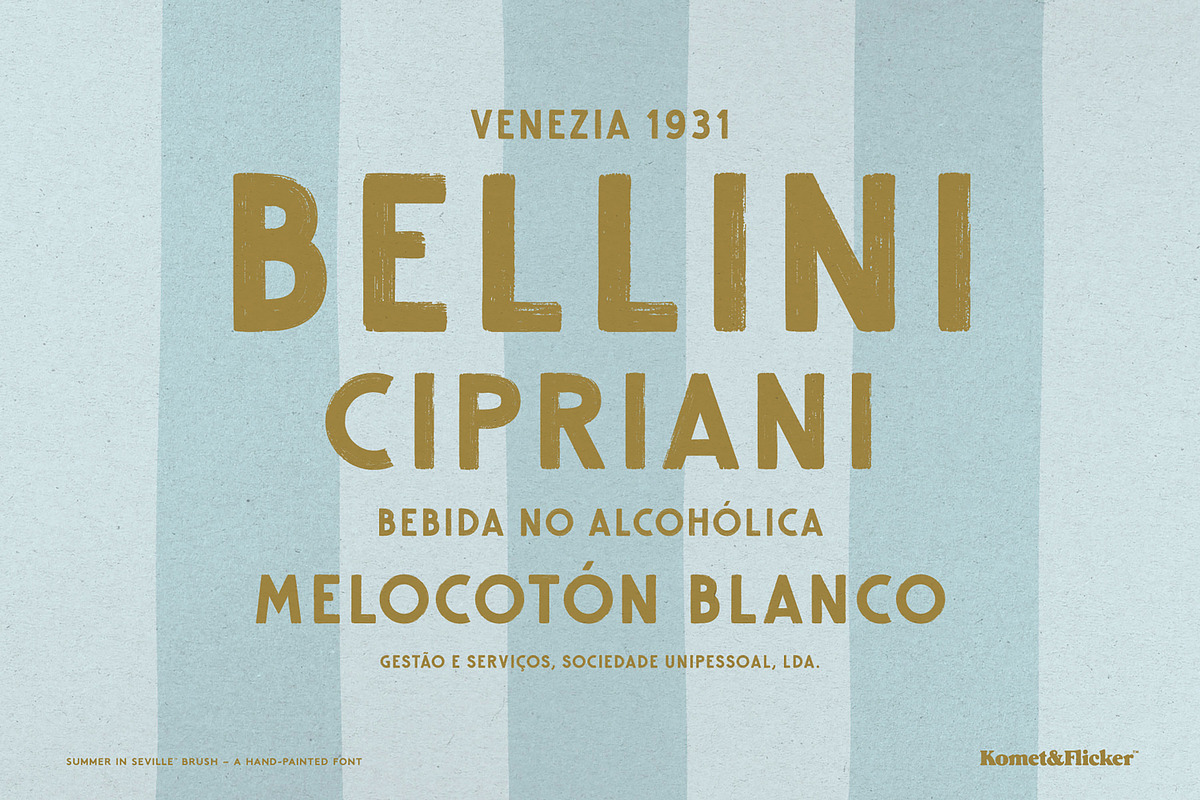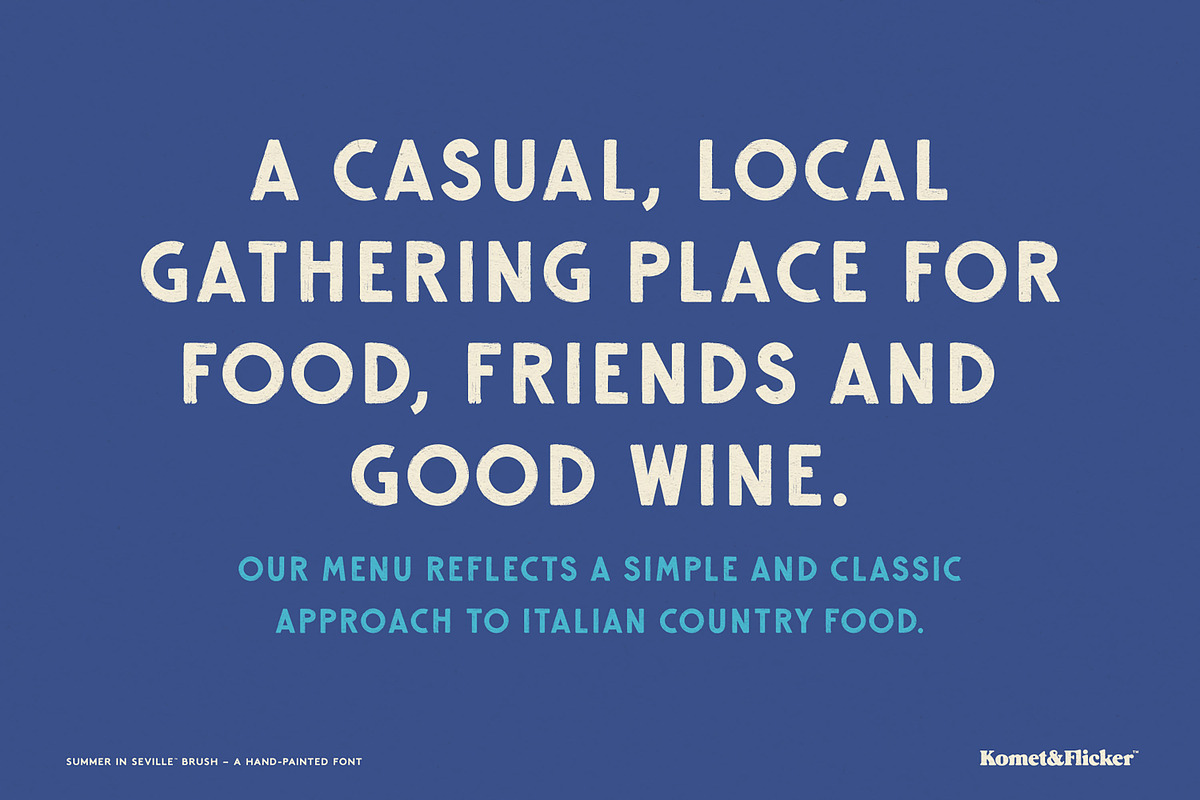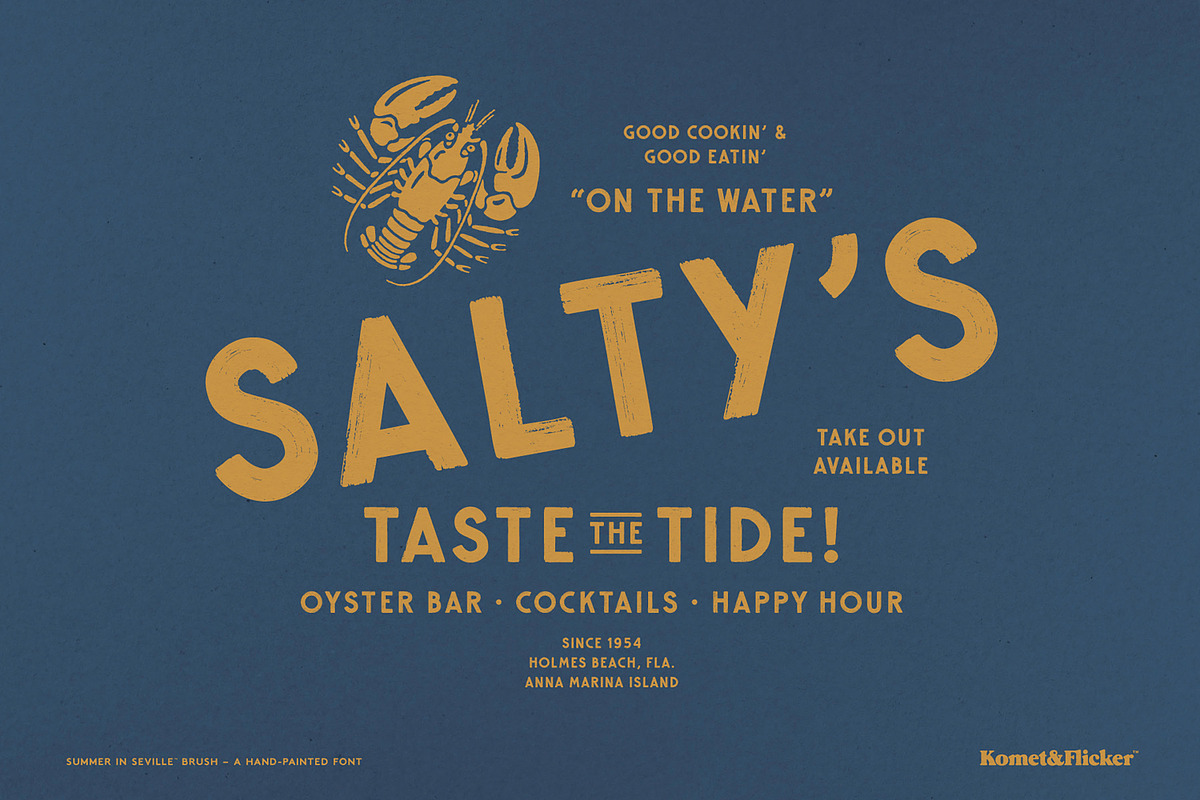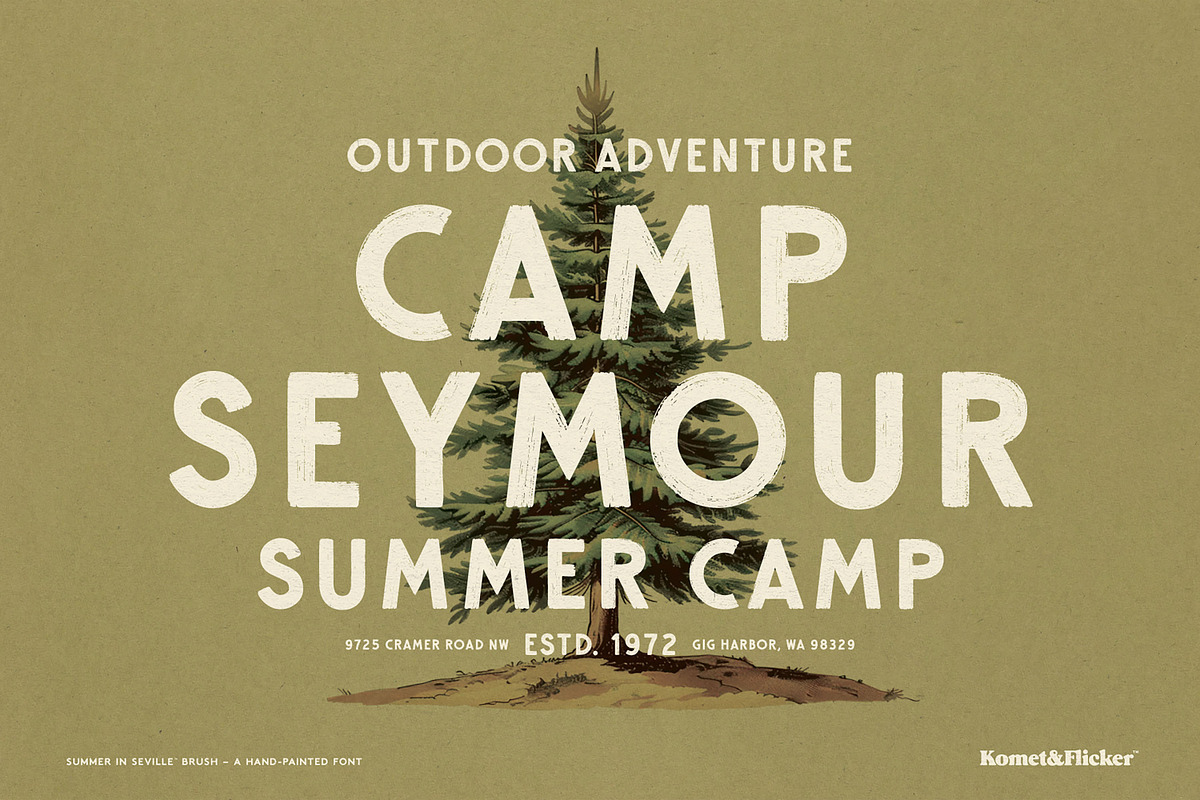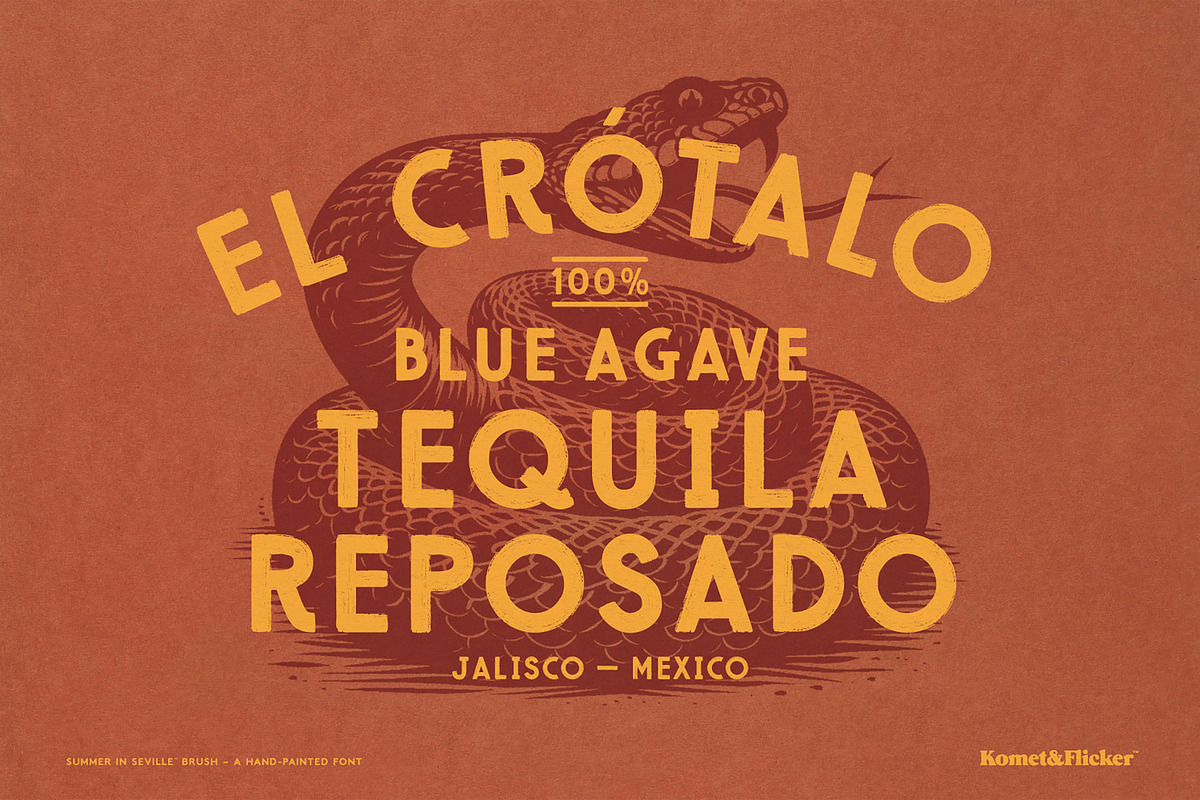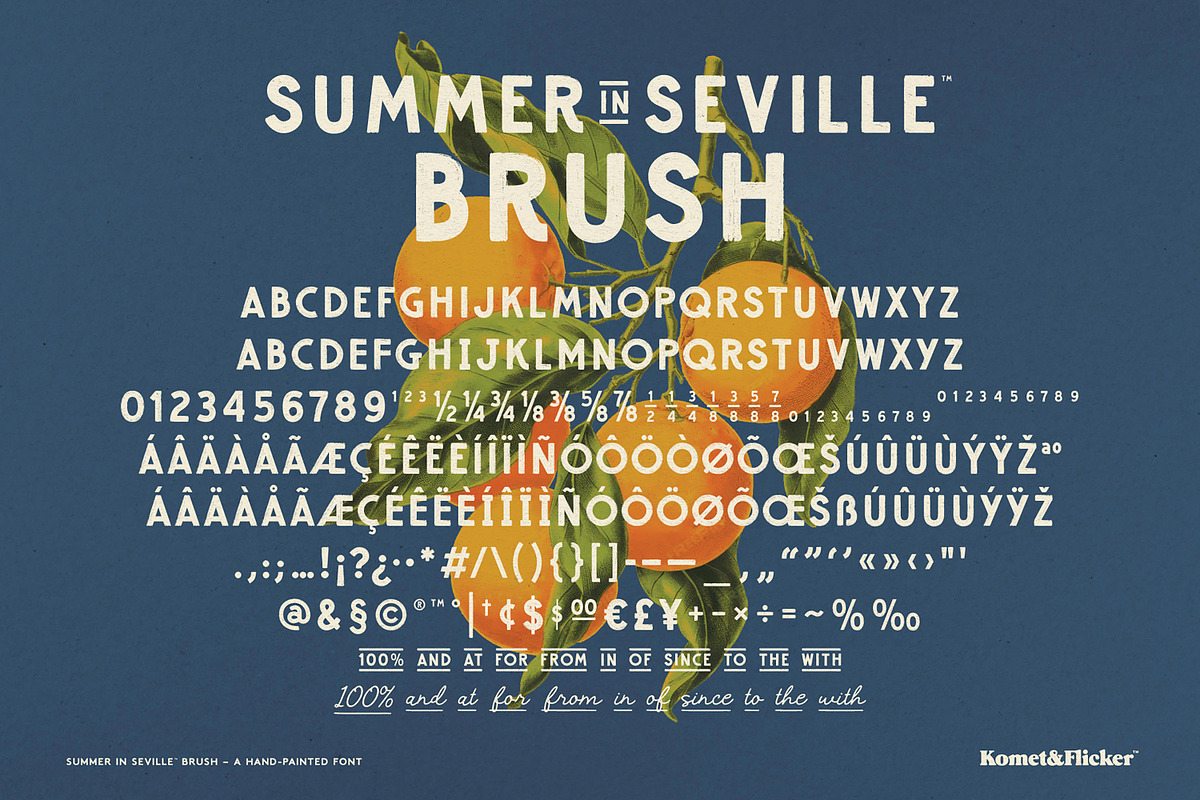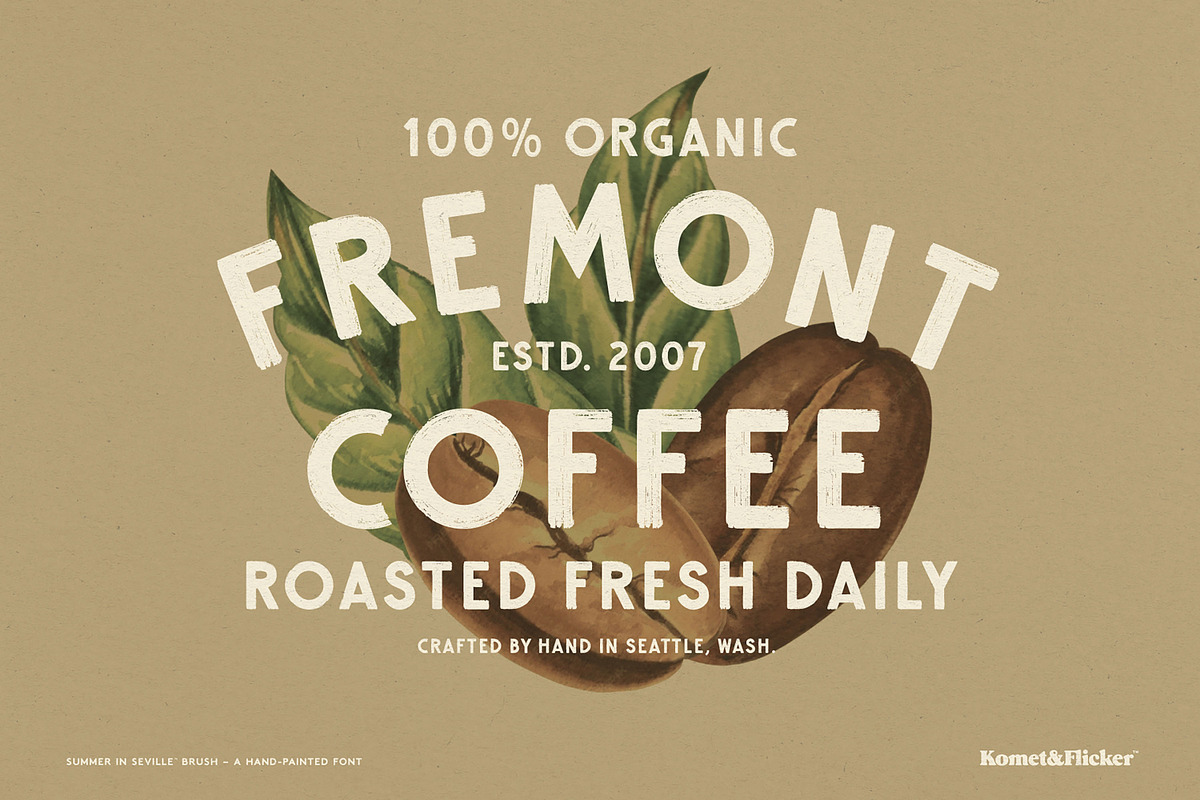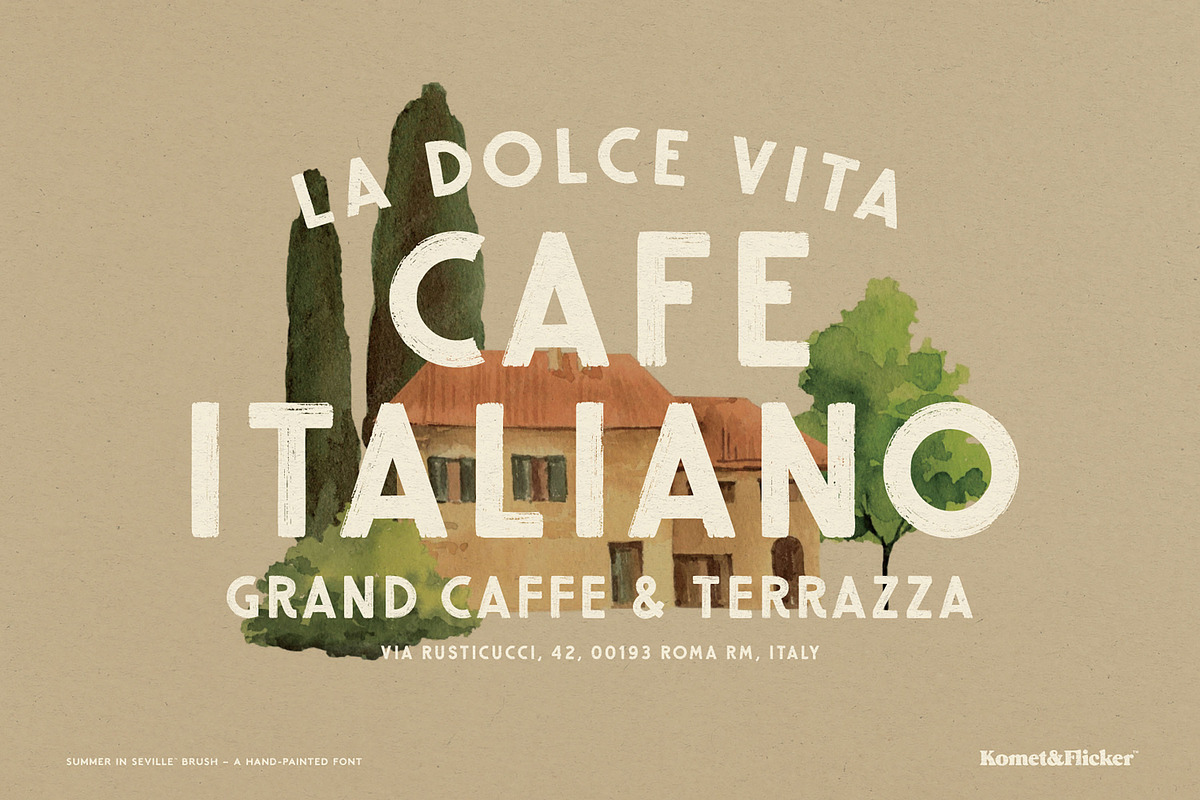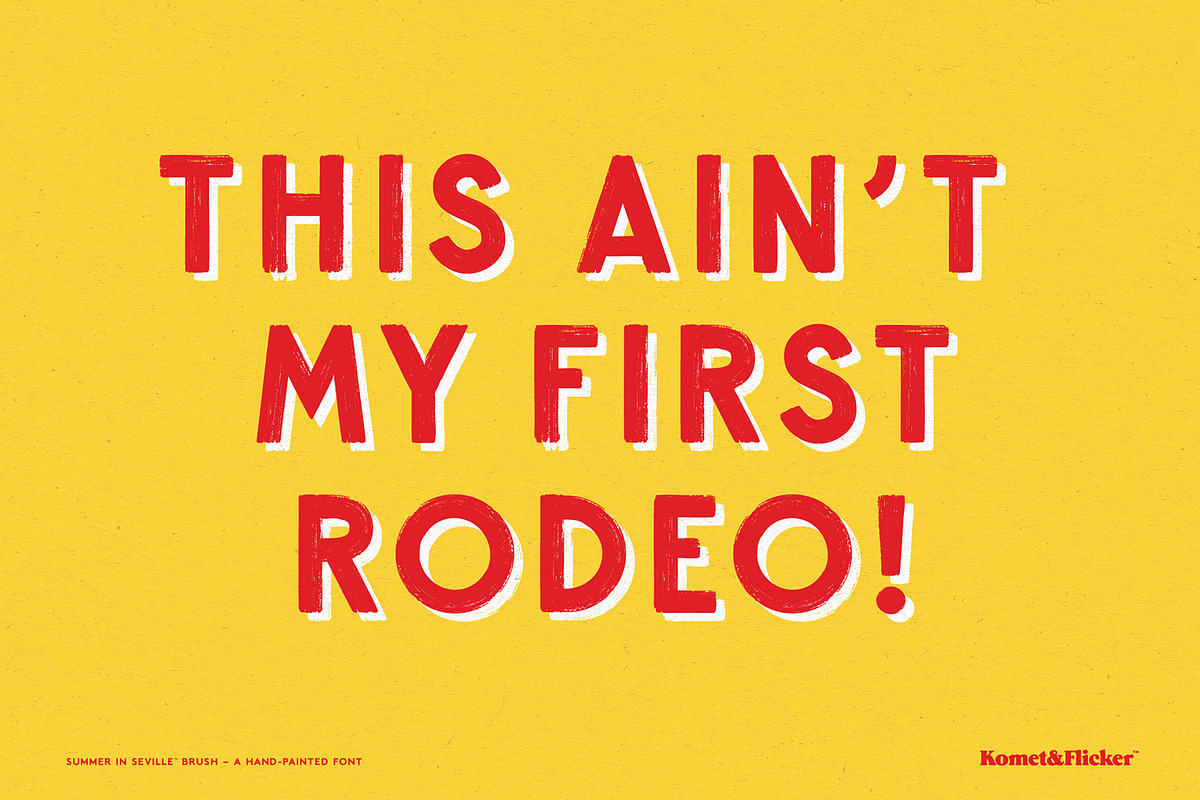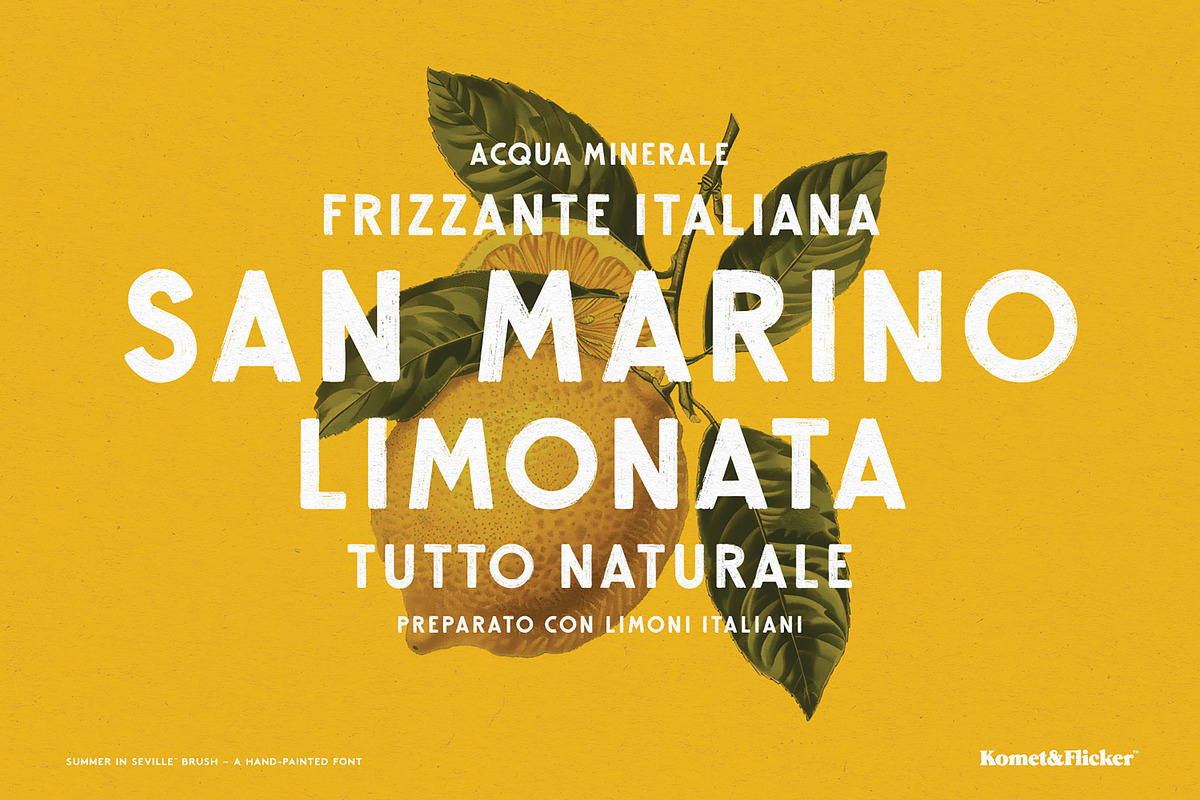
Summer in Seville Brush
Bring sun-soaked warmth and vintage charm to your designs with Summer in Seville, a beautifully handcrafted font inspired by timeless European typography. This font is lovingly painted by hand to capture the spirit of old-world typography, striking the perfect balance between casual sophistication and nostalgic character.
Also included are 11 connecting word glyphs in two styles (sans and script) letting you effortlessly create seamless, expressive layouts – perfect for logos, packaging, travel posters, menus, and invitations that radiate warmth and authenticity.
With its retro European flair and handcrafted texture, Summer in Seville Brush brings a touch of timeless artistry to every project.
Full A-Z uppercase basic latin characters
Select European specific characters
Numbers, punctuation, and select symbols
10 alternate character glyphs
Two styles of pre-made common fractions
Set of 11 custom connecting word glyphs in both sans and script